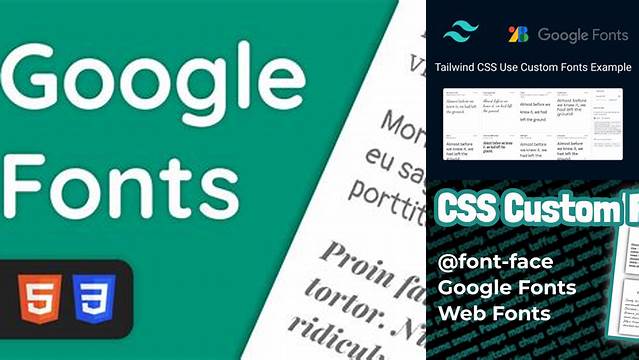
Google Fonts: CSS Guide To Using Custom Fonts
Hey guys! Ever wanted to spice up your website with some cool, unique fonts but didn't know where to start? Well, you've come to the right place! In this guide, we're diving deep into how to use Google Fonts custom fonts using CSS. It's easier than you think, and trust me, it can make a huge difference in how your site looks and feels.
What Are Google Fonts?
So, first things first, let's talk about what Google Fonts actually are. Google Fonts is basically a huge library of free, open-source fonts that you can use on your website. It's a fantastic resource because it's super easy to use, doesn't cost you anything, and offers a massive variety of typefaces. Forget about being stuck with boring, standard fonts – with Google Fonts, the possibilities are endless!
When you use Google Fonts, you're essentially linking to fonts hosted on Google's servers. This means your website visitors don't need to have the font installed on their computers; it's all handled seamlessly through the web. Plus, because Google's servers are optimized for speed, the fonts load quickly without slowing down your site. This is a major win for user experience!
Another great thing about Google Fonts is that they're constantly being updated and improved. The library is always growing, with new fonts being added regularly. This means you'll always have fresh options to choose from and can keep your website looking modern and up-to-date. So, whether you're a seasoned web developer or just starting out, Google Fonts is a tool you should definitely have in your arsenal.
Why Use Custom Fonts?
Now, why should you even bother with custom fonts in the first place? Well, think about it: fonts are a crucial part of your website's design. They set the tone, convey your brand's personality, and can even influence how people perceive your content. Using a custom font can help you stand out from the crowd and create a unique visual identity.
Imagine you're running a website for a playful, creative brand. Using a standard, serious-looking font just wouldn't cut it, right? A custom font that's fun and quirky can instantly communicate your brand's vibe and attract the right audience. On the flip side, if you're building a website for a professional services firm, a clean and elegant custom font can project an image of trustworthiness and expertise.
Custom fonts also play a big role in readability and user experience. Choosing the right font size, weight, and style can make your content much easier to read, keeping visitors engaged and on your site longer. Plus, using a custom font can help you create a more consistent and cohesive design across your entire website, reinforcing your brand's identity and making a lasting impression. So, don't underestimate the power of fonts – they're a key ingredient in a successful website!
Finding the Perfect Font on Google Fonts
Okay, so you're convinced that custom fonts are the way to go. But with so many options available, how do you find the perfect font for your website on Google Fonts? Don't worry, it's not as overwhelming as it seems! The Google Fonts website has a bunch of helpful tools and filters to narrow down your choices.
You can start by browsing through the different font categories, like serif, sans-serif, display, and handwriting. Each category has its own distinct style and feel, so think about what kind of mood you want to create on your website. You can also use the filters to specify things like font thickness, slant, and width. This is super useful for finding fonts that match your specific design requirements.
Another great feature is the ability to preview fonts with your own text. Just type in a sentence or two, and you'll see how the font looks in action. You can also adjust the font size and weight to get a better sense of how it will appear on your website. And if you're feeling overwhelmed, don't be afraid to experiment and try out different combinations. The key is to find a font that not only looks good but also complements your overall design and enhances the readability of your content. So, take your time, have fun, and find the font that's just right for you!
Linking Google Fonts to Your Website
Alright, you've picked out the perfect Google Font – now what? The next step is to actually link that font to your website so you can start using it in your CSS. Luckily, Google Fonts makes this process super easy. There are a couple of different ways to do it, but the most common method is to use a <link> tag in your HTML.